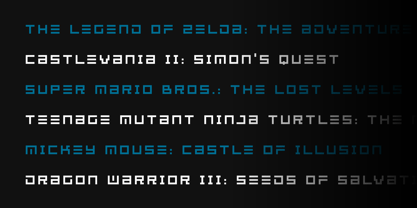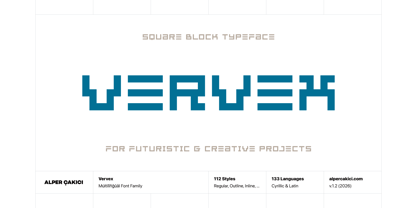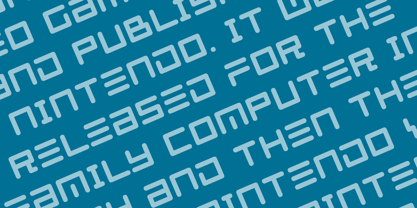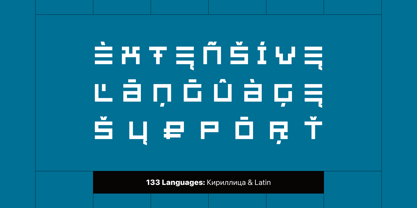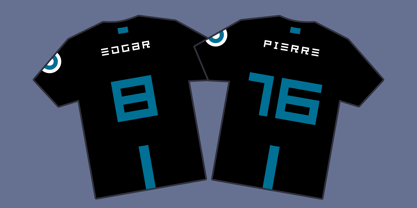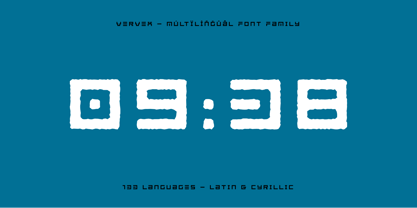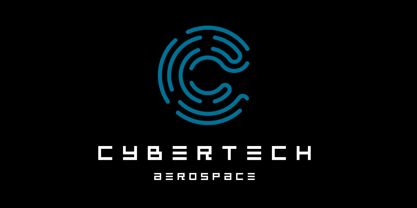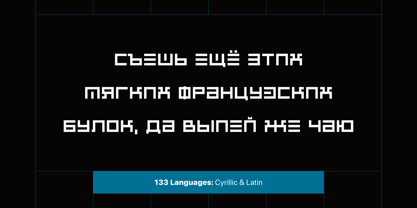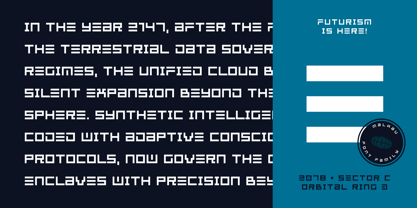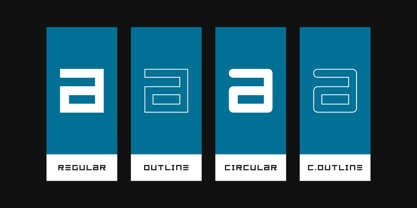
Vervex
The Vervex Font Family was designed by Alper Çakıcı and published by AlperCakici. Vervex contains 112 styles and family package options. More about this family
Vervex is a bold, highly versatile display typeface built on a strong block and square foundation, designed to deliver impact across a wide range of visual styles. With its geometric structure and modern attitude, Vervex is engineered for designers who seek both consistency and expressive flexibility in one unified family. What makes Vervex stand out is its extensive system of stylistic variations. From sharp Angular cuts to smooth Circular and Rounded forms, the typeface adapts effortlessly to different creative directions. Each style is further enhanced with a rich set of textures and effects, including Brush, Chalk, Pencil, Inline, Outline, Rimmed, Sketchy, and more experimental finishes like Corroded, Cracked, Distressed, Eroded, Fragmented, Grainy, Gritty, Noise, and Worn. This modular approach allows designers to maintain a cohesive typographic voice while exploring radically different aesthetics—from clean and minimal to raw and distressed. Whether you're crafting branding, posters, album covers, editorial headlines, packaging, or digital graphics, Vervex provides the tools to match your vision. The family includes both upright and italic counterparts across nearly all styles, enabling dynamic typographic hierarchy and motion. Its block-based construction ensures strong readability at display sizes, while the stylistic diversity encourages experimentation and bold visual storytelling. Vervex also supports an extensive range of Latin-based languages, making it a practical choice for international design projects without sacrificing stylistic depth. Perfect for: - Branding and identity systems - Posters and advertising - Music and entertainment graphics - Packaging design - Editorial headlines - Digital and social media visuals Vervex is not just a typeface—it’s a complete visual system built for expressive, modern design.